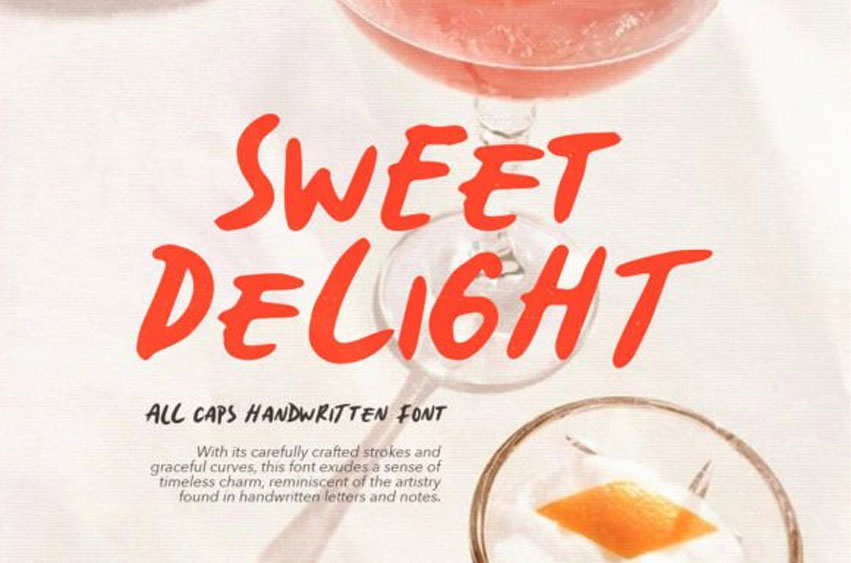
Sweet Delight Font
Sweet Delight Font is a bold, all-caps handwritten font. It features a mix of uppercase and lowercase letters, allowing you to combine them in the same word for a more natural and handmade appearance in your projects.
This font is versatile and suitable for various purposes, particularly for quotes. Additionally, it supports multiple languages.